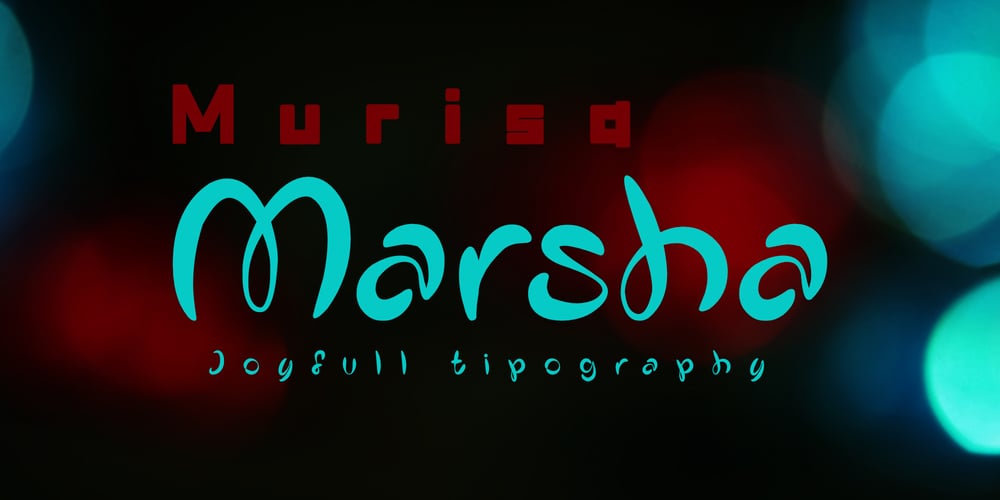
Murisa Marsha Font Family was designed by Lili Sadili and published by Murisa Studio. Murisa Marsha contains 2 styles and family package options. Hello, good morning. Today we again want to present the newest font that we have created. Murisa Marsha Font. This font is very unique with different shapes. You will get a new experience when using this font. This font is very suitable for those of you who are targeting children or teenagers with a relaxed style. Immediately get this font here. Thank You